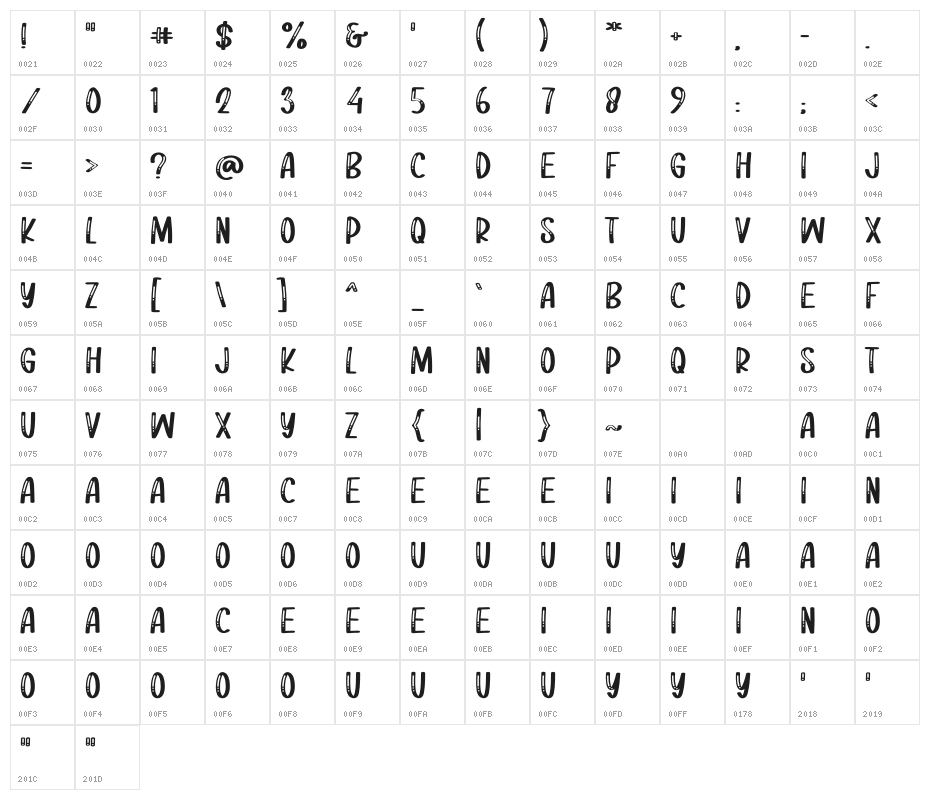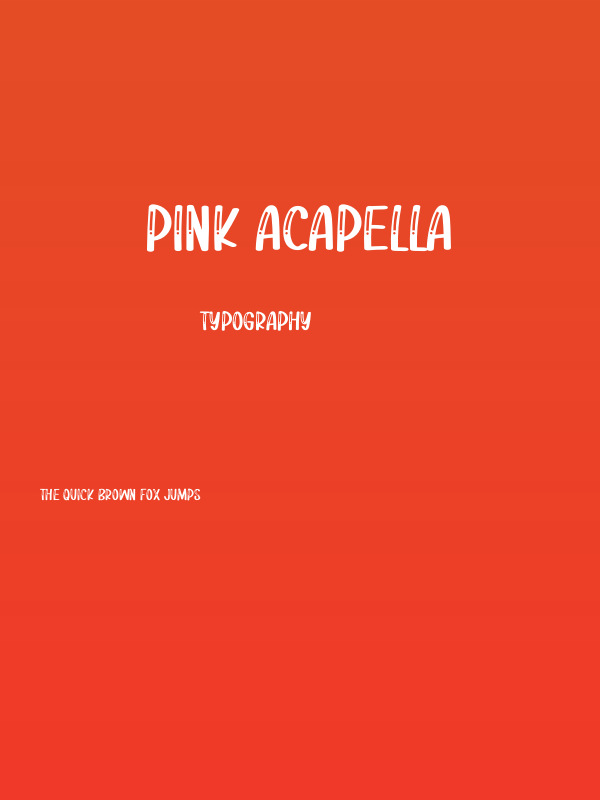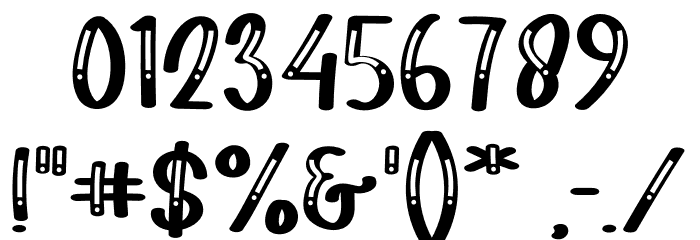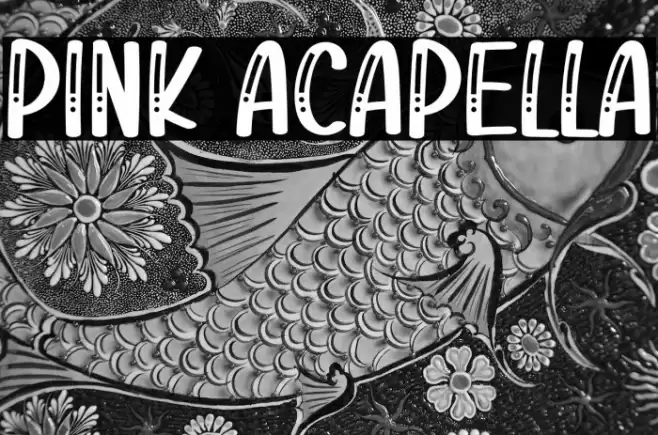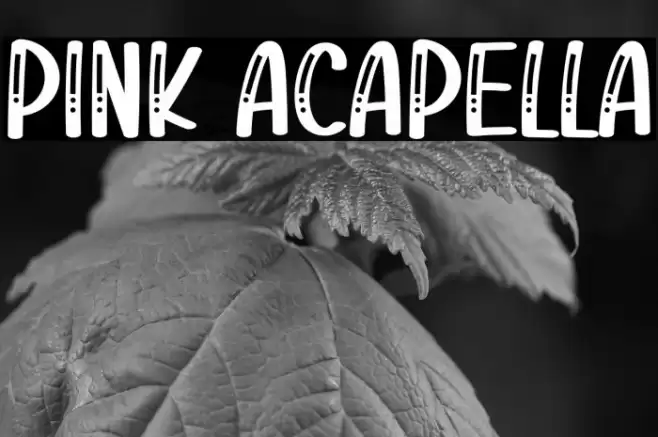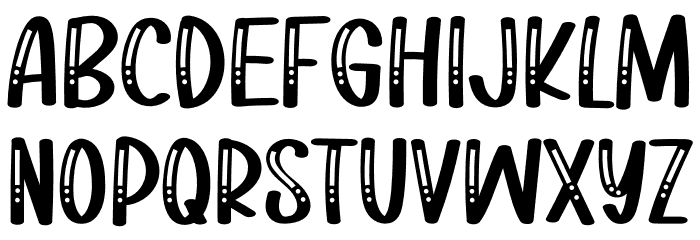
Pink Acapella Font
Pink Acapella Description
This playful and decorative font features bold, rounded characters with a whimsical touch. Each letter is adorned with small circular cutouts, adding a unique and fun element to the design. The font maintains a consistent stroke width, giving it a cohesive and balanced appearance. Its quirky style is perfect for projects that require a touch of creativity and personality. The numerals and special characters follow the same design principles, ensuring uniformity across all elements.
| Proposed Projects | Ideal for children's book covers, playful branding, party invitations, and creative posters. |